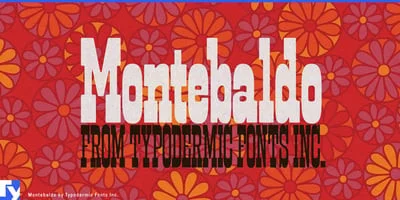
Montebaldo Font
Montebaldo Font is perfect for Italian restaurant branding, Tuscan winery labels, Mediterranean tourism materials, artisan pasta packaging, luxury villa rentals, traditional Italian cookbook covers, authentic gelato shop signage, and rustic countryside wedding invitations.
This font is exciting because it captures the passionate romance and artistic heritage of Italian culture with warm, expressive letterforms that evoke rolling Tuscan hills and centuries of Renaissance artistry. The Montebaldo Font brings the soul of Italy to modern design, transforming ordinary text into heartfelt expressions of la dolce vita and authentic Mediterranean charm that speaks to the heart.
The Montebaldo Font family includes Italian-inspired variations such as Regular, Bold, Light, Italic, Rustico, Condensed, Extended, and Elegante versions, providing Mediterranean designers with comprehensive tools to create authentic Italian typography that celebrates the rich cultural heritage and artistic traditions of Italy.
Celebrate Italian passion with Montebaldo Font that brings Mediterranean warmth to every design project. This culturally rich typeface combines Italian artistic tradition with contemporary functionality, making it perfect for food and hospitality brands, tourism operators, and organizations celebrating Italian heritage and lifestyle. The font's expressive character design ensures your message feels authentic and welcoming while maintaining excellent readability across all applications. Whether you're developing Italian restaurant branding, creating Mediterranean travel materials, or designing packaging that honors Italian craftsmanship, Montebaldo Font delivers the passionate typography that connects with audiences seeking genuine Italian experiences. Its versatile design works beautifully across digital and print media while preserving the romantic warmth that makes Italian communications feel like personal invitations to experience the beauty, flavor, and joy of authentic Italian culture and hospitality.